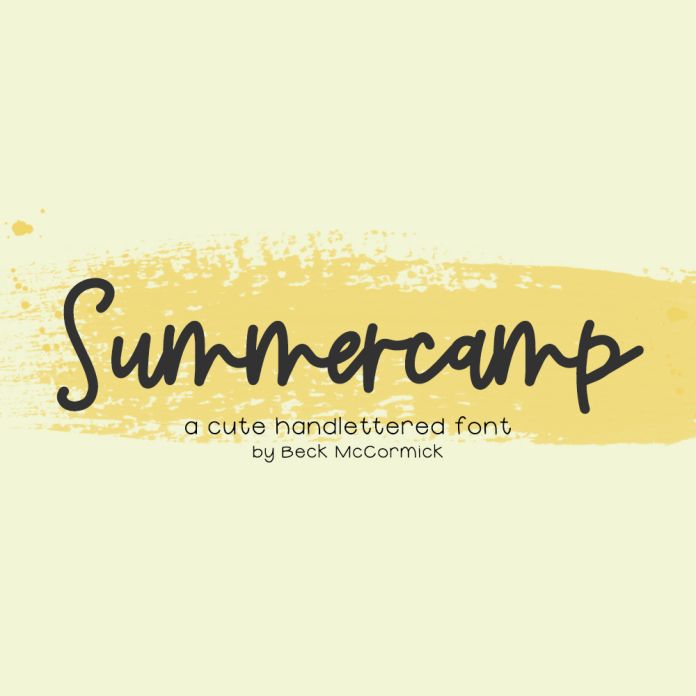
Introducing Summercamp Script, a cute monoline script with a summery feel.
Summercamp is best for:
- feminine, crafty projects with your Cricut or Silhouette machine, or your SVG design business